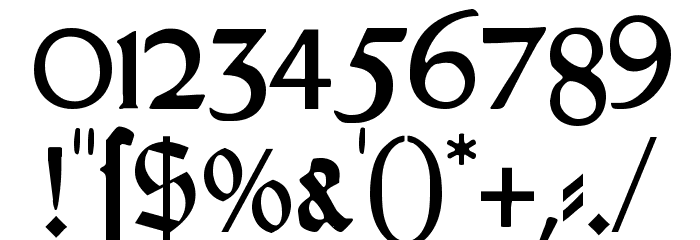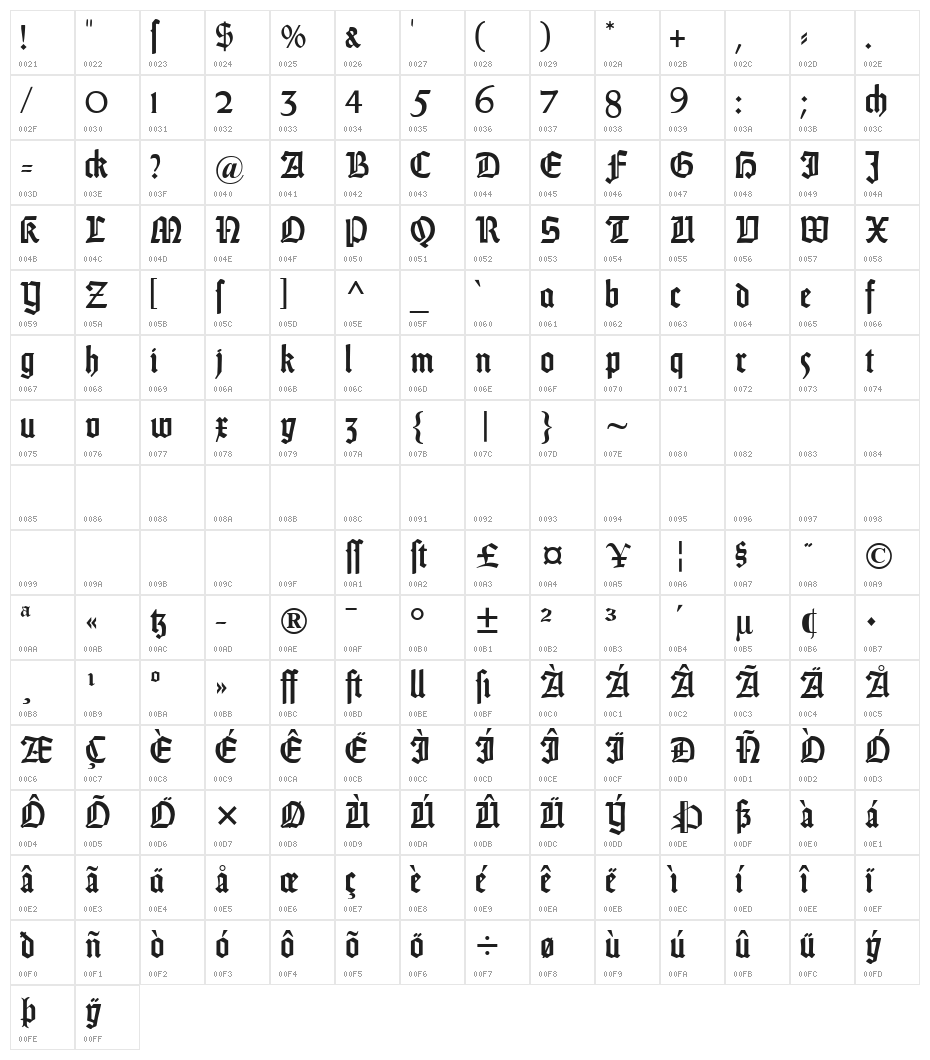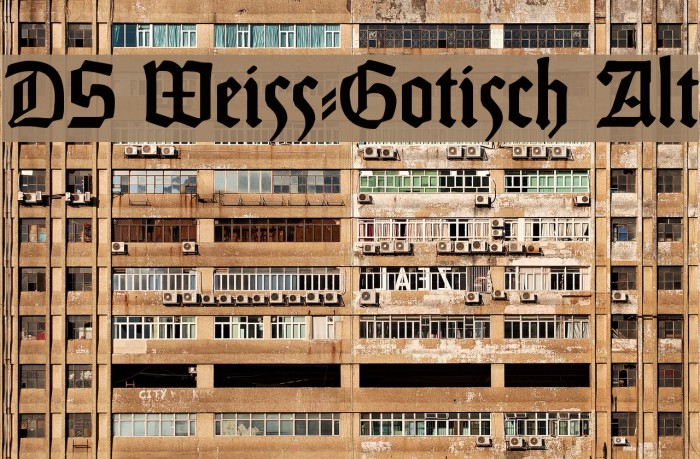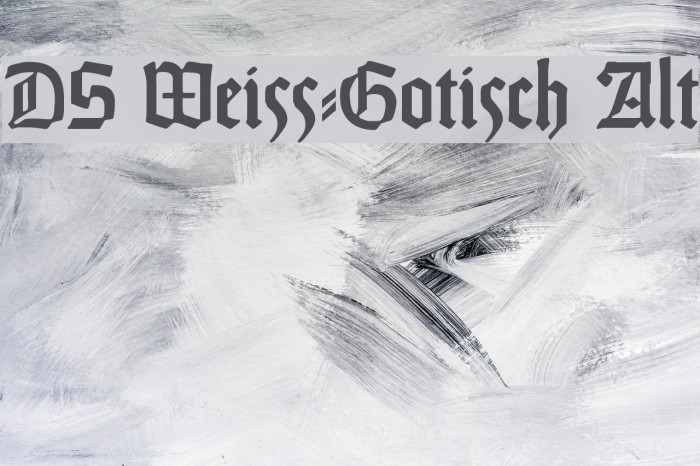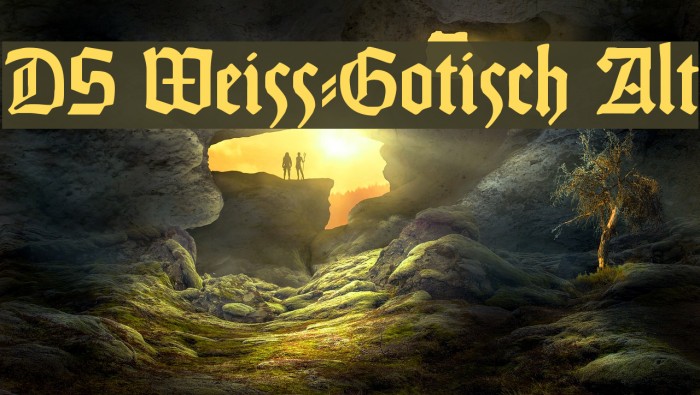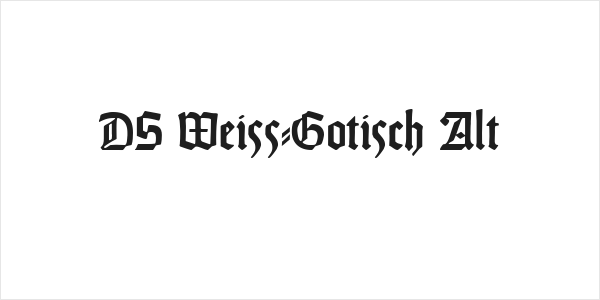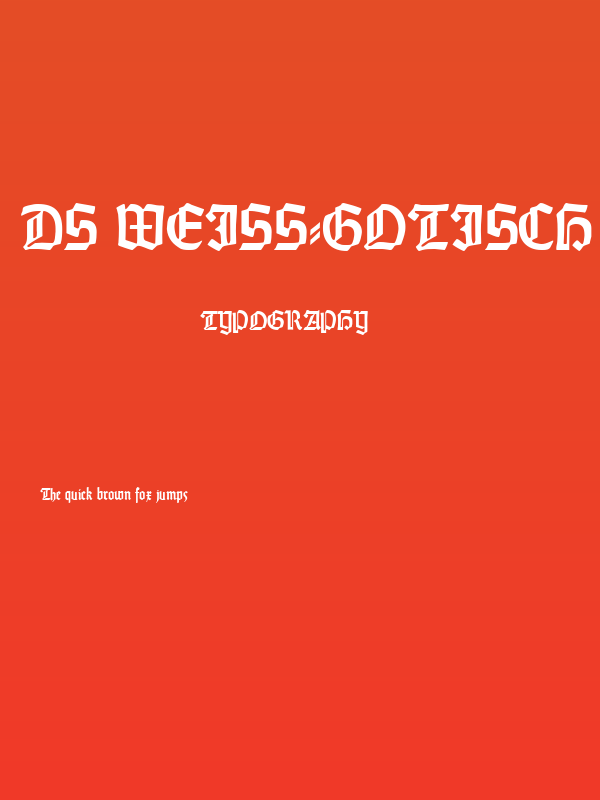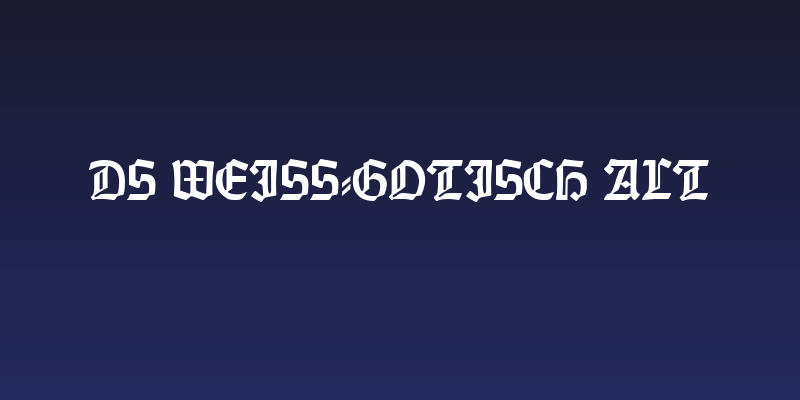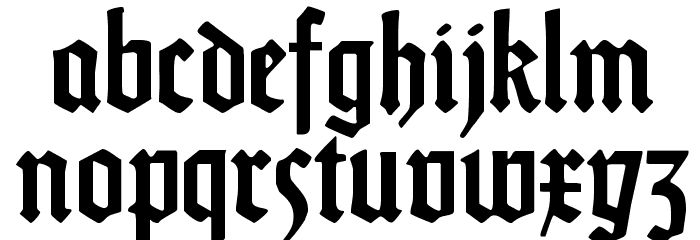
DS Weiss-Gotisch Alt Font
DS Weiss-Gotisch Alt Description
This font features a traditional Blackletter style, characterized by its intricate and ornate letterforms. The uppercase letters exhibit sharp, angular lines with a distinct medieval flair, while the lowercase letters maintain a consistent style with slightly more rounded edges. The numerals are bold and maintain the same decorative style, ensuring uniformity across all characters. Special characters are also included, designed to complement the overall aesthetic. This font's historical and gothic appearance makes it ideal for projects that require a touch of classic elegance and sophistication.